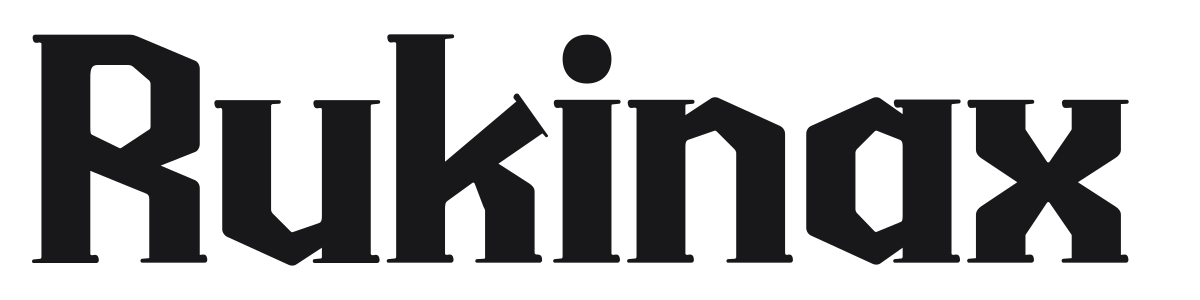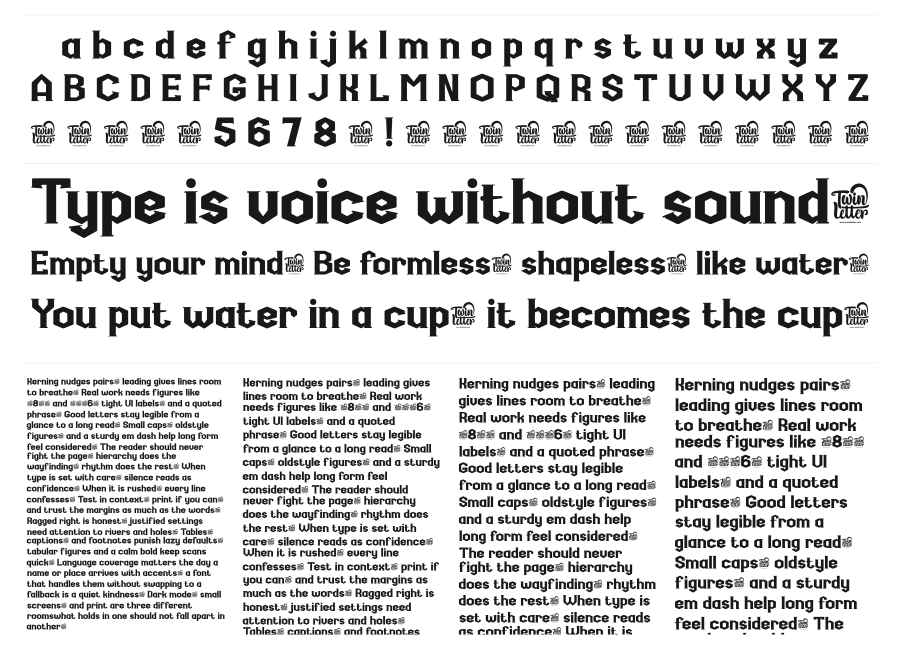
Rukinax
Rukinax is a heavy gothic display font that bridges medieval blackletter tradition with modern street and metal aesthetics. Thick, angular strokes with notched terminals give it a raw, chunky presence that reads instantly at large sizes. It has the weight and attitude to anchor a band logo, apparel brand, or event poster without any decoration.